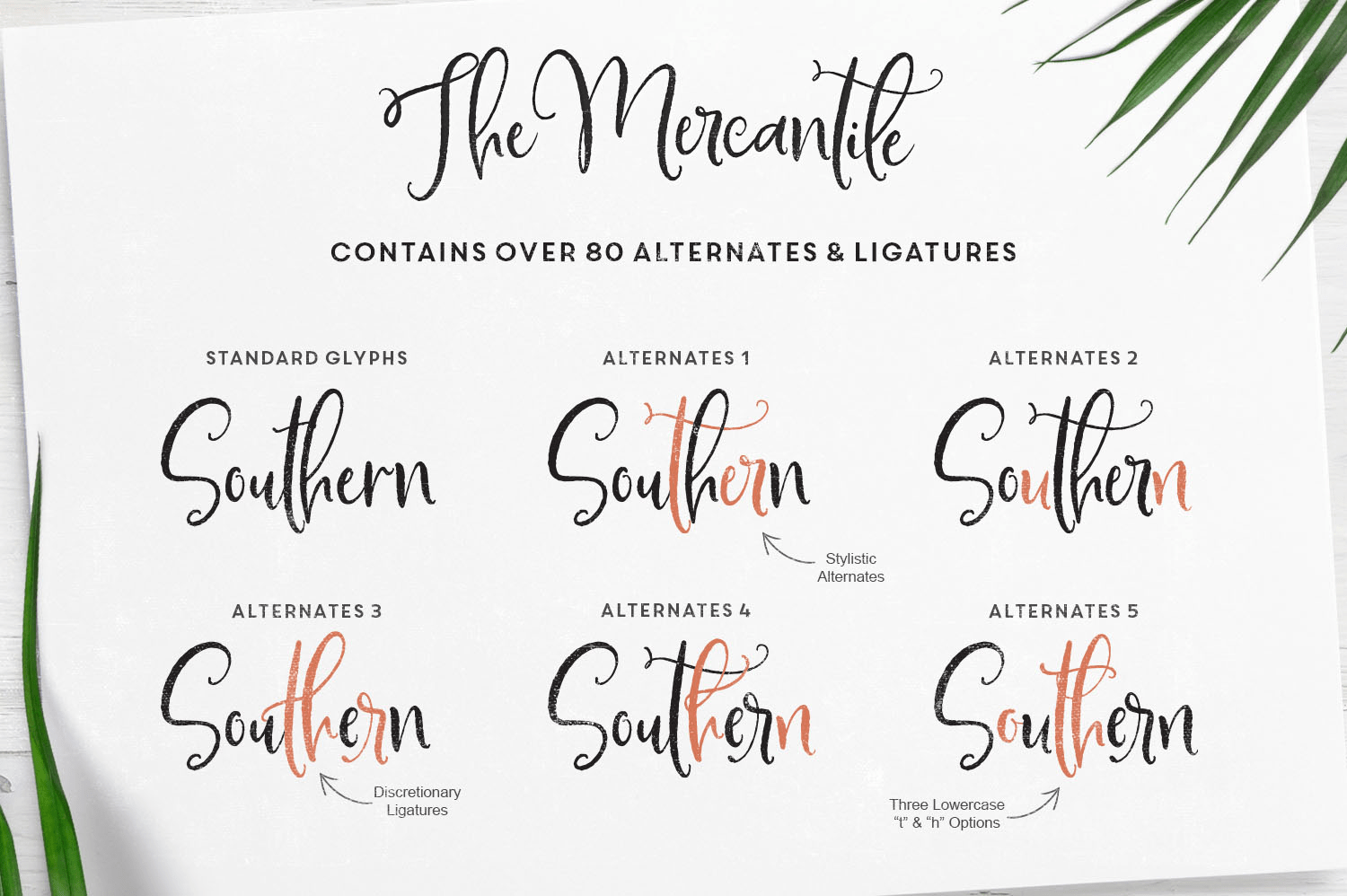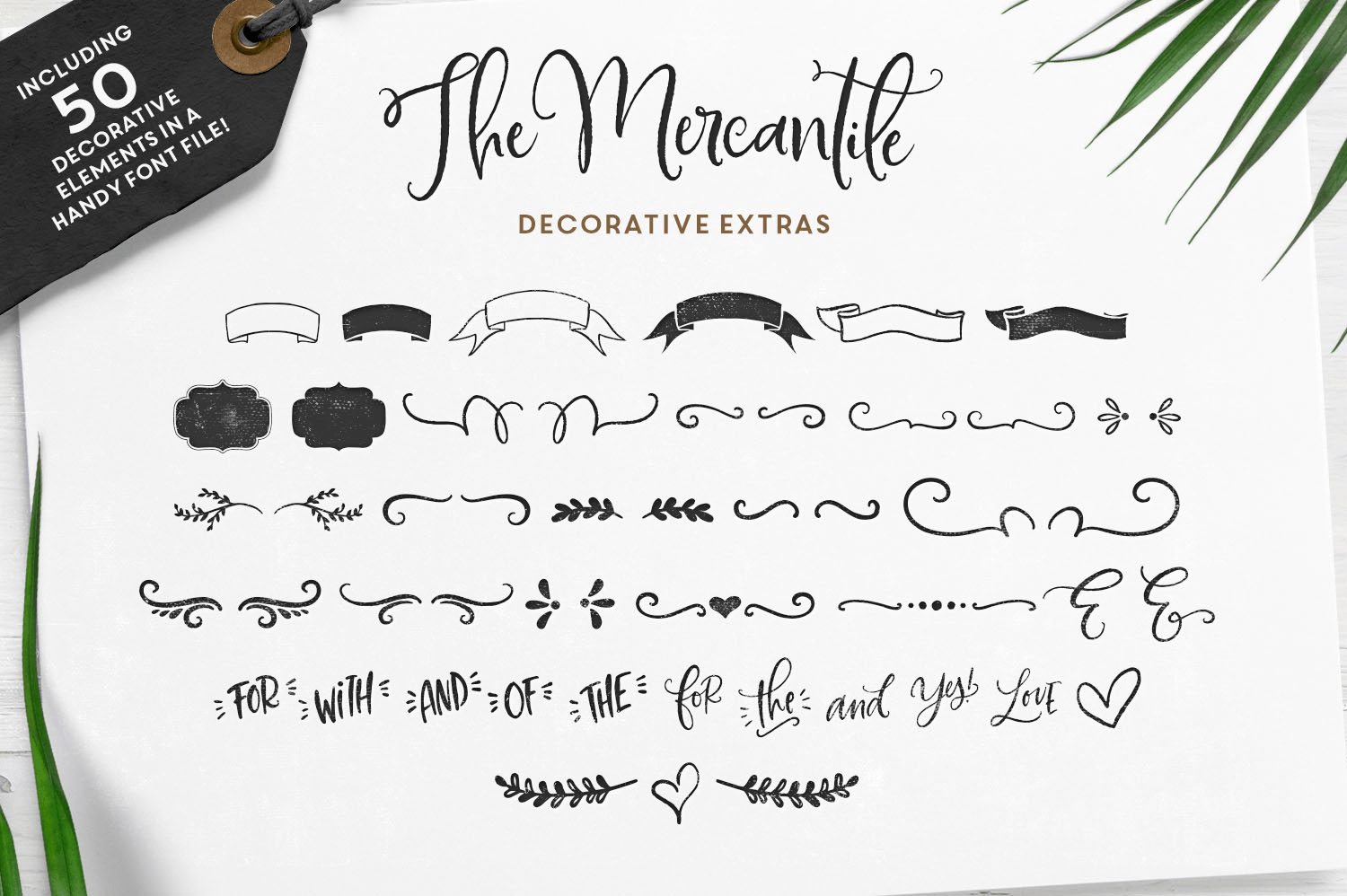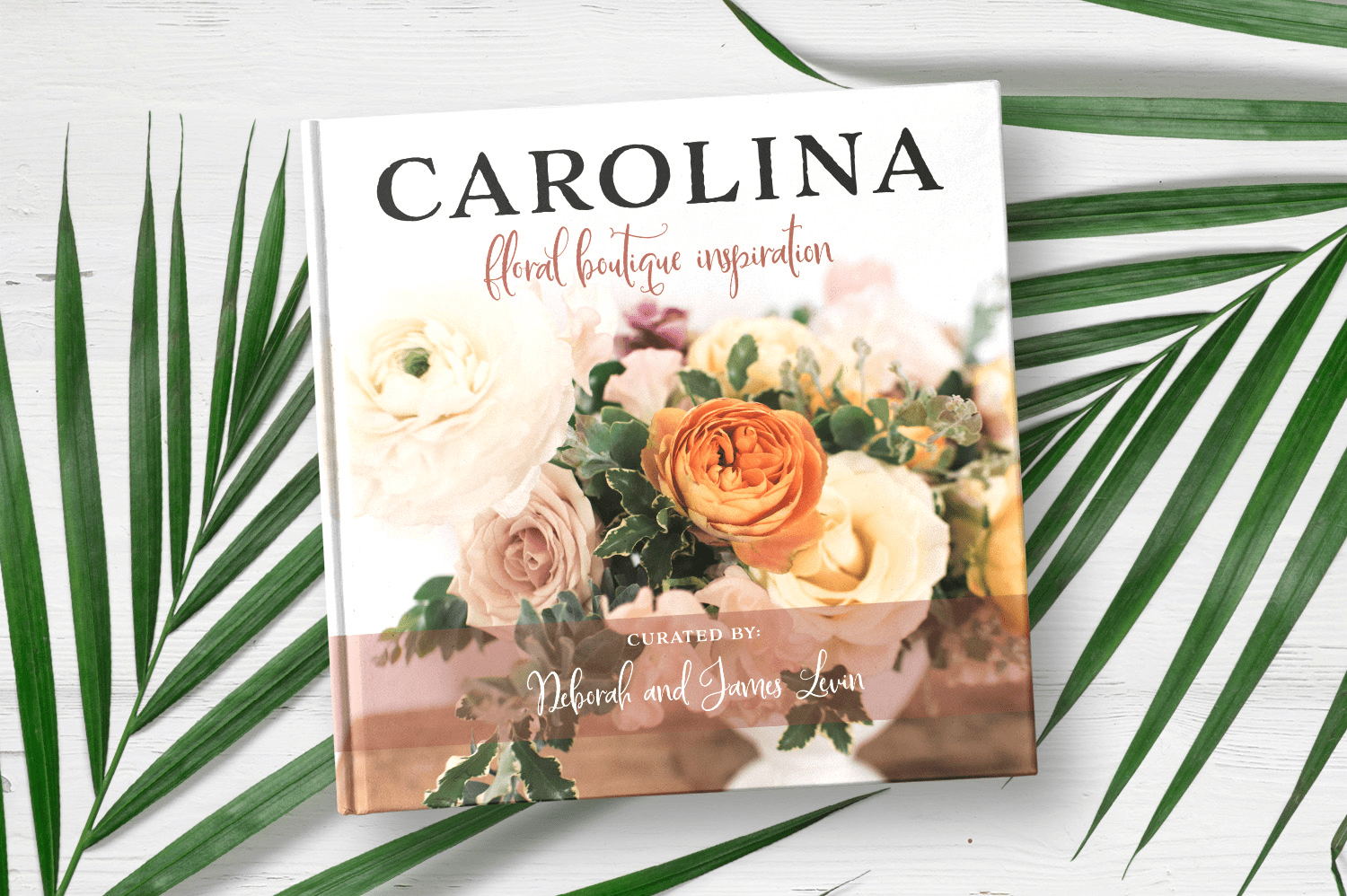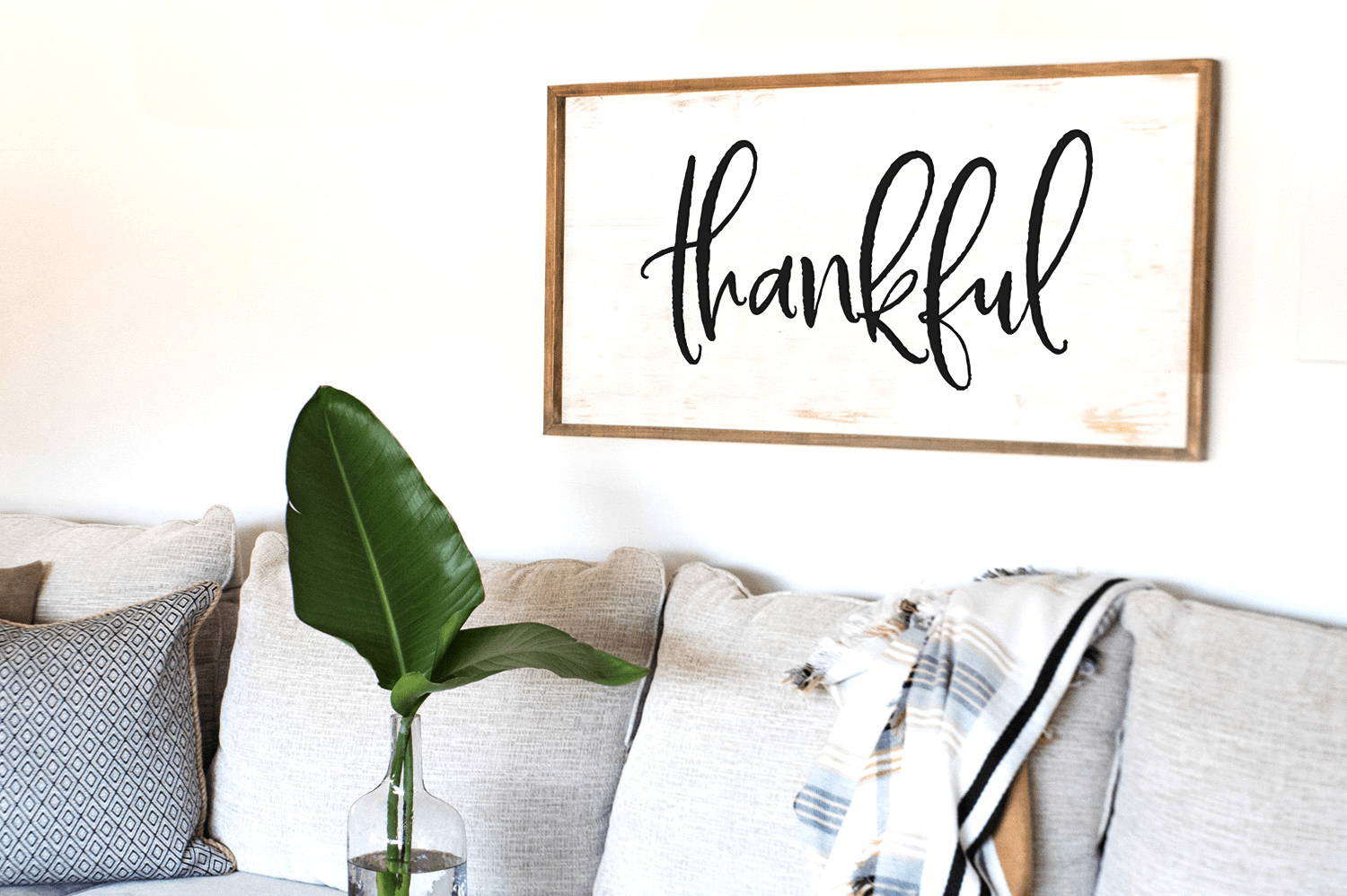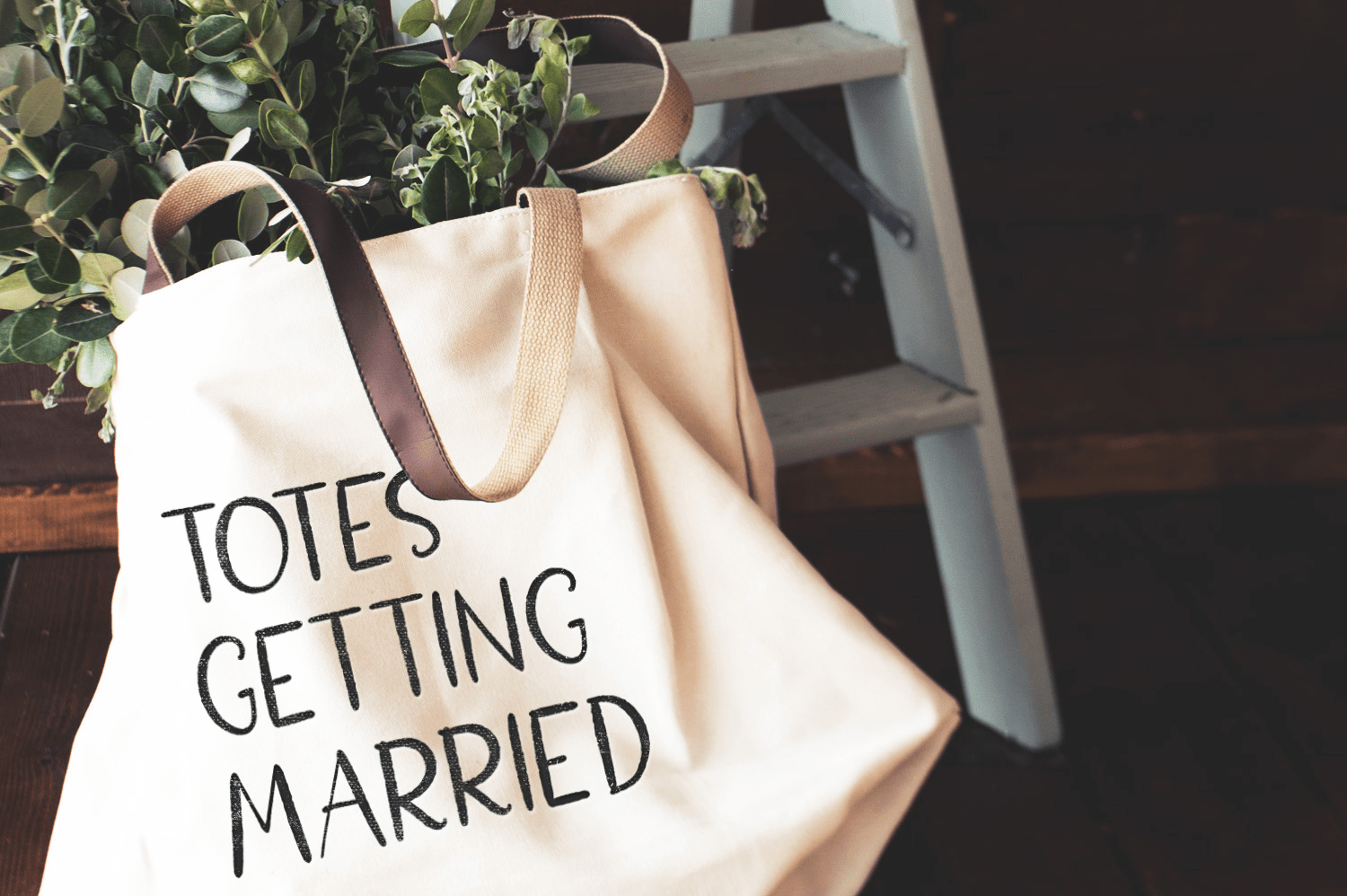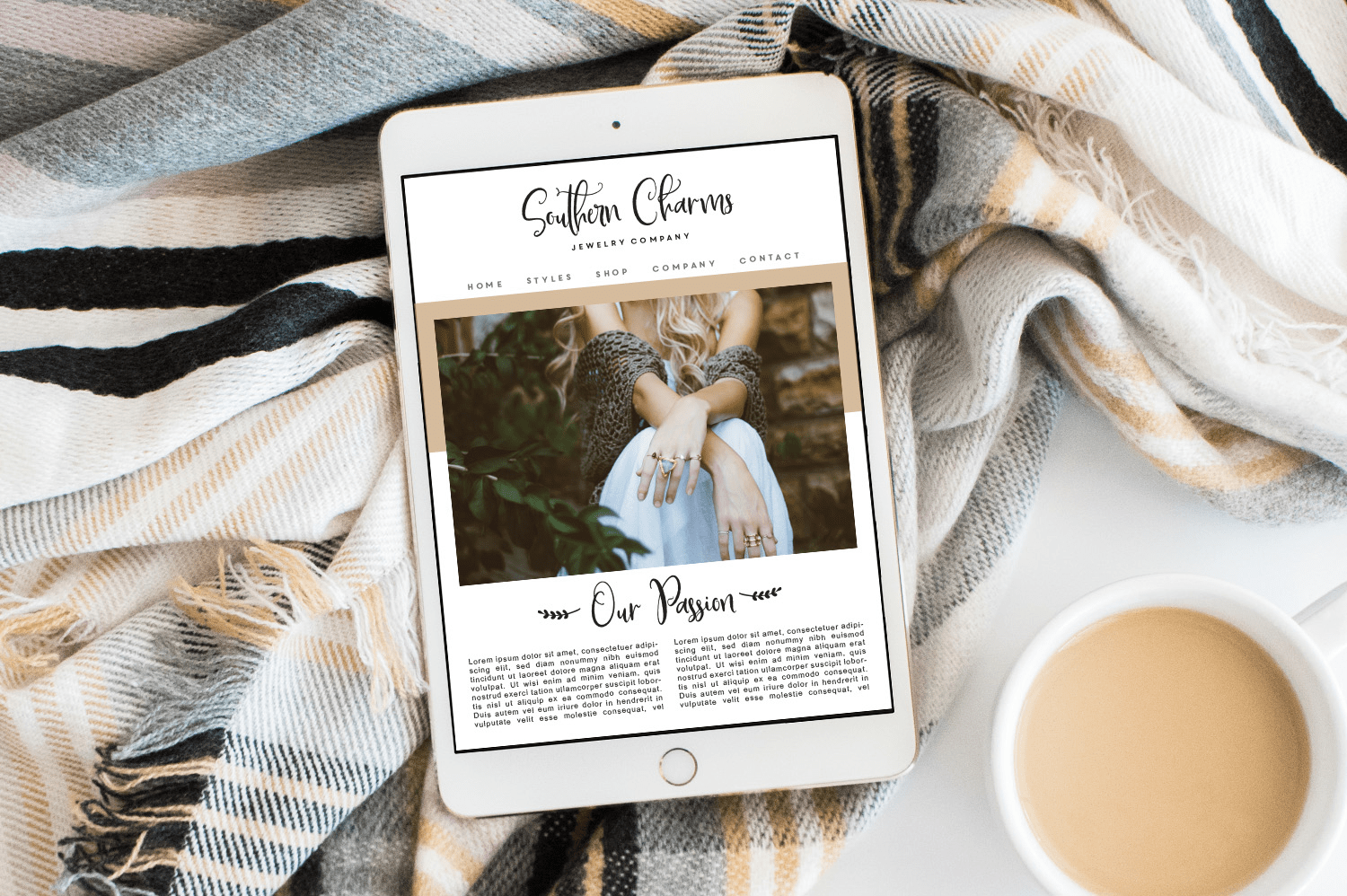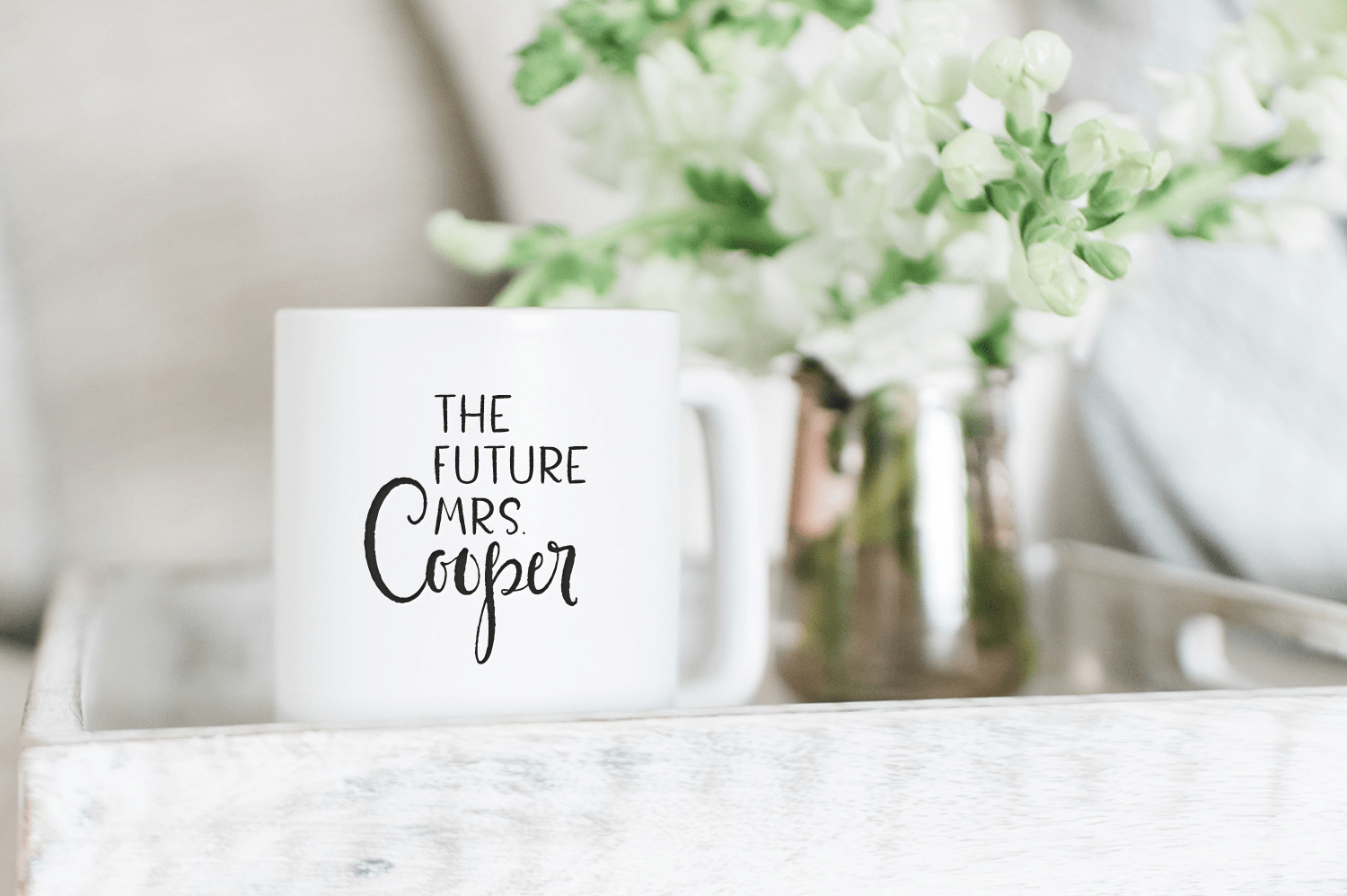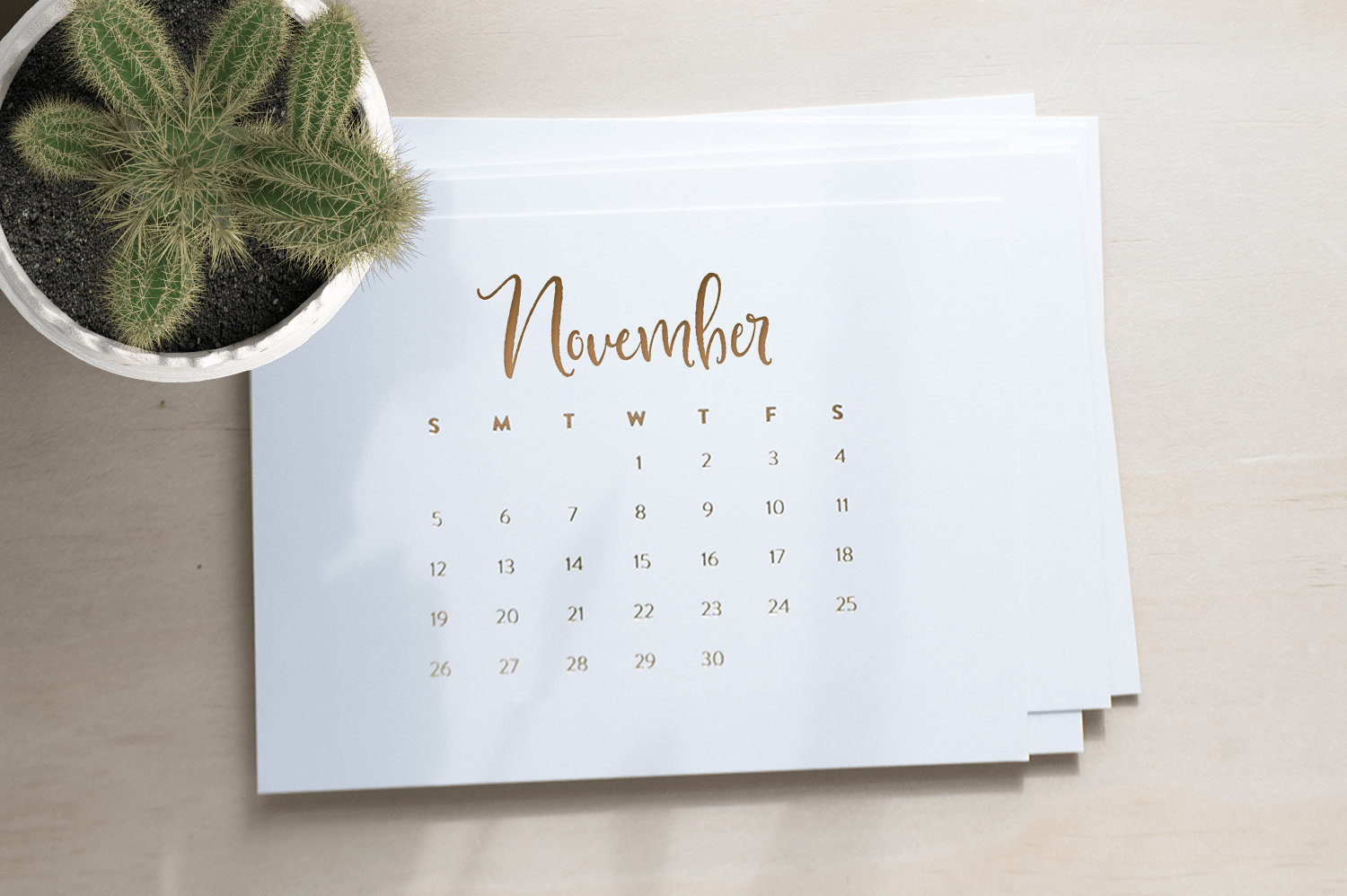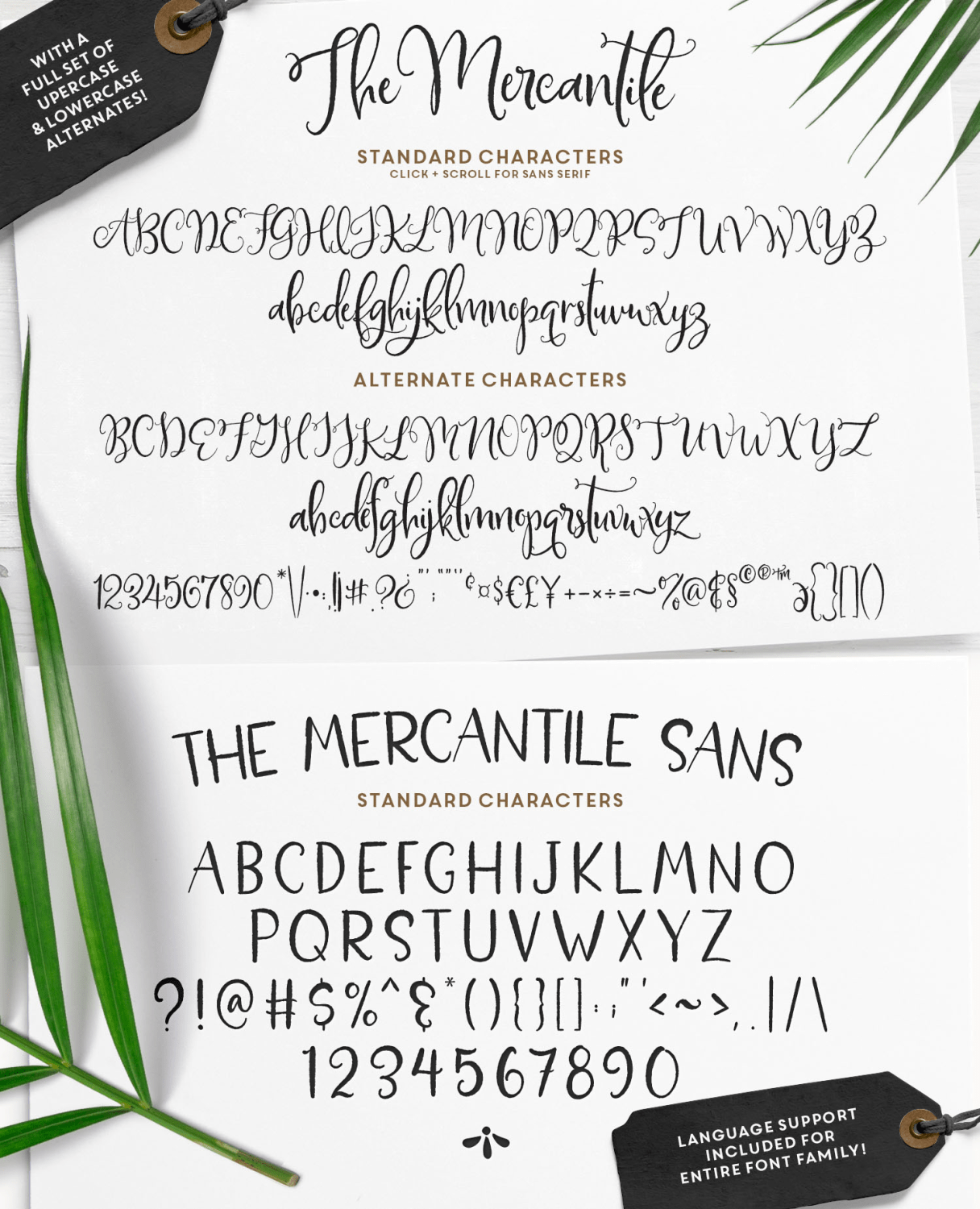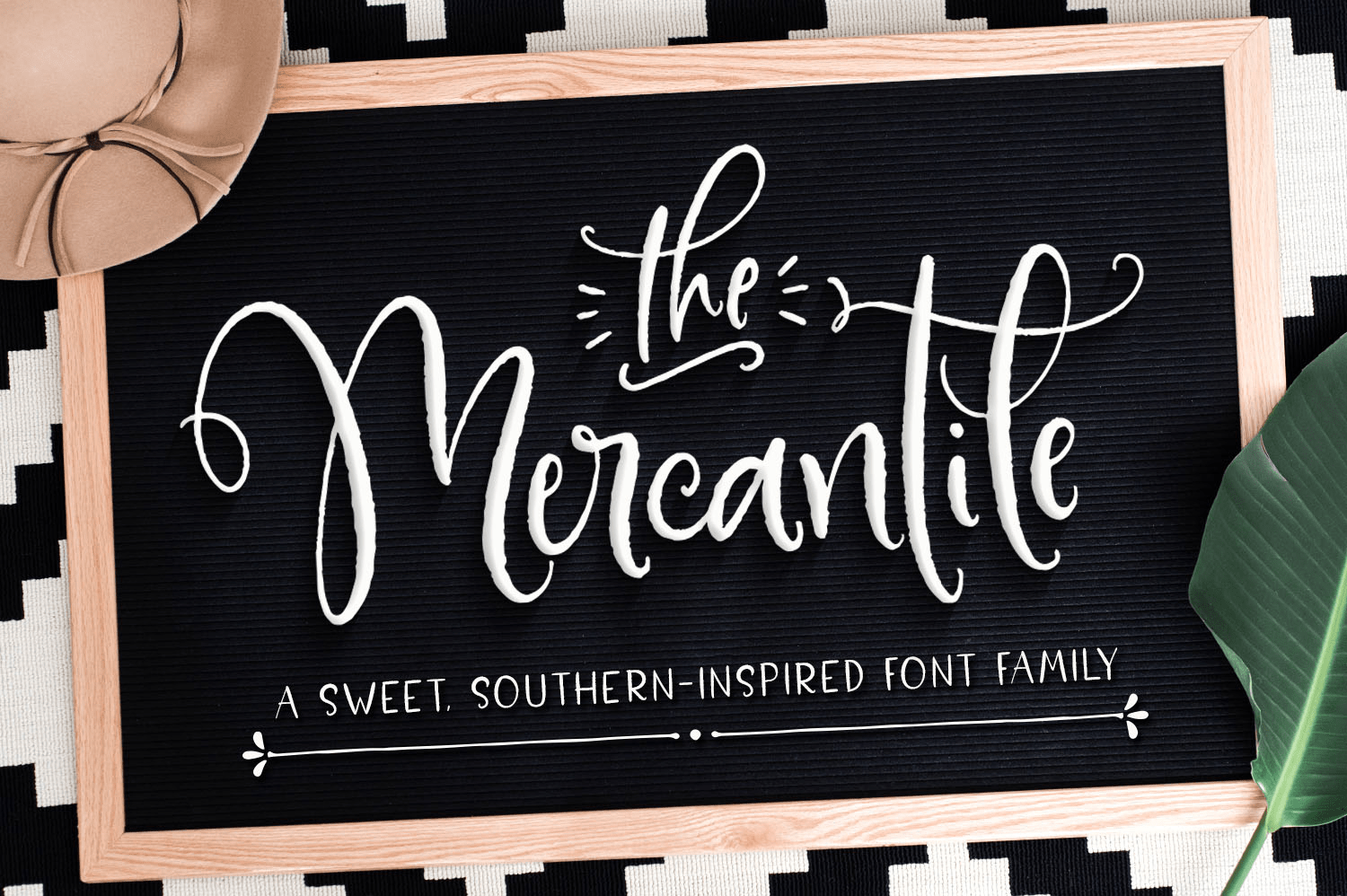
The Mercantile
About The Mercantile
Oh, how I love the South! Most of my family hails from Tennessee, Georgia and Kentucky. So of course, I wanted to tip my hat to my fine friends and family down South with this relaxed, yet playful font family. The dancing baseline and decorative characters…